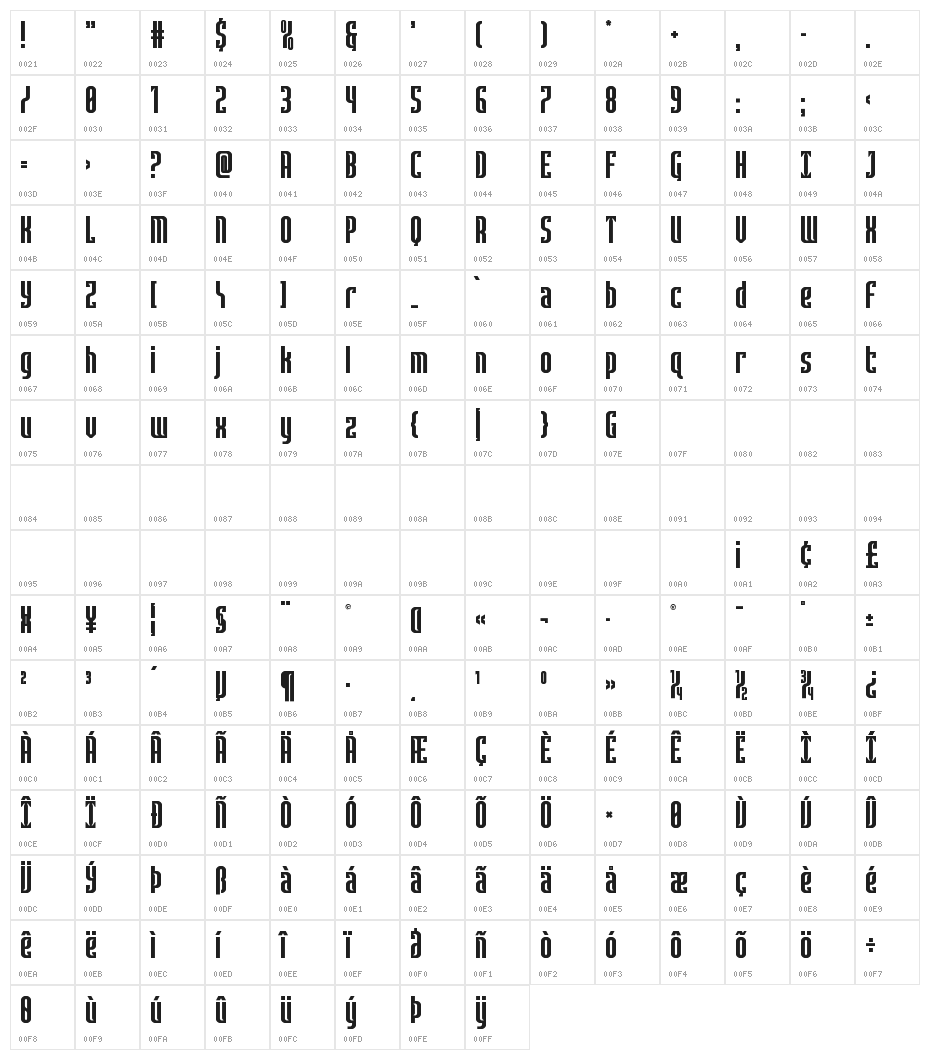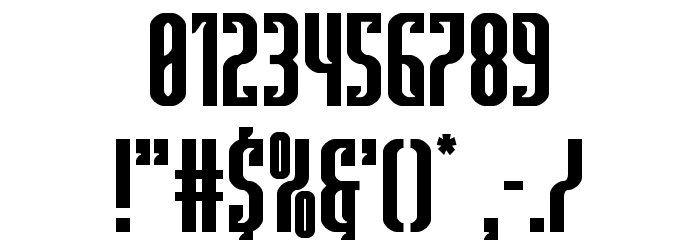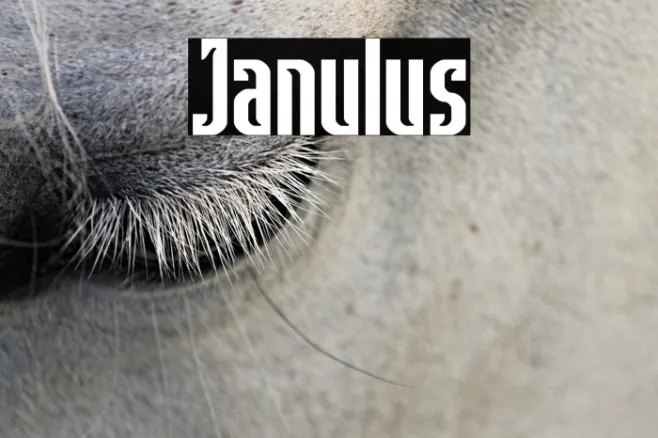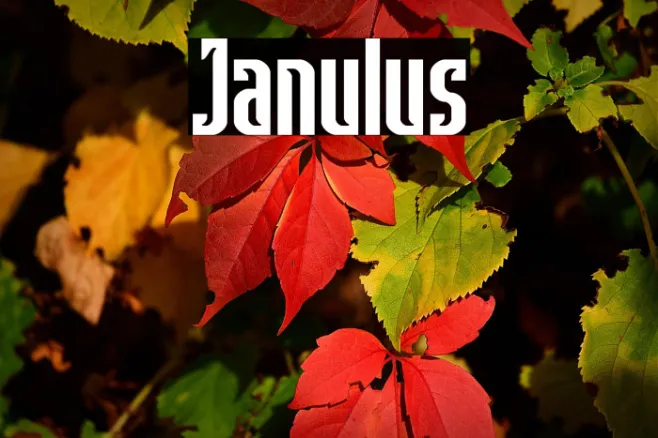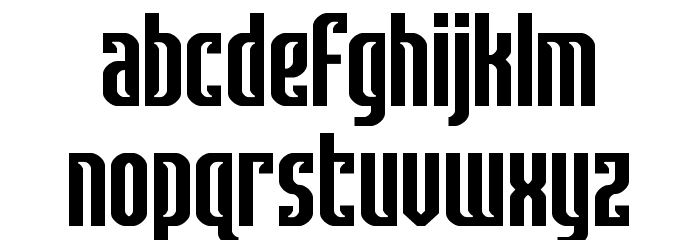
Janulus Font
Janulus Description
This font features a bold and striking design with a modern, geometric aesthetic. The characters are tall and narrow, with sharp angles and clean lines that create a sense of strength and precision. The uppercase letters are particularly distinctive, with unique cutouts and angular shapes that add a dynamic flair. The lowercase letters maintain the same geometric style, ensuring consistency across the typeface. Numbers and special characters are equally bold, making them stand out in any design. This font's strong visual impact makes it ideal for attention-grabbing headlines and titles.
JANULUS UPPERCASE
JANULUS LOWERCASE
JANULUS OTHER CHARS